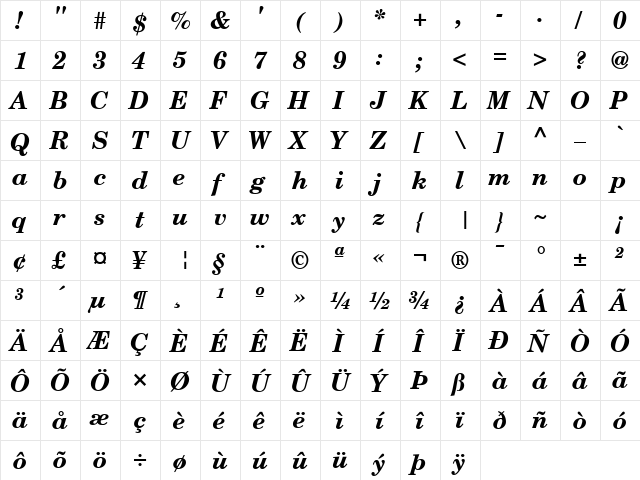
Century Schoolbook Reprise SSi Bold Italic Font Preview
Design Context for Century Schoolbook Reprise SSi Typeface
Century Schoolbook Reprise SSi is a composed and adaptable typeface that performs quietly and consistently across a wide range of design contexts. The dynamic lean of this cut emphasises speed and emphasis in any layout. The heavy weight commands attention and anchors typographic hierarchies.
Pro Tip: Try Century Schoolbook Reprise SSi for annotation and caption copy alongside an upright companion — the contrast in angle creates a dynamic but ordered typographic system.